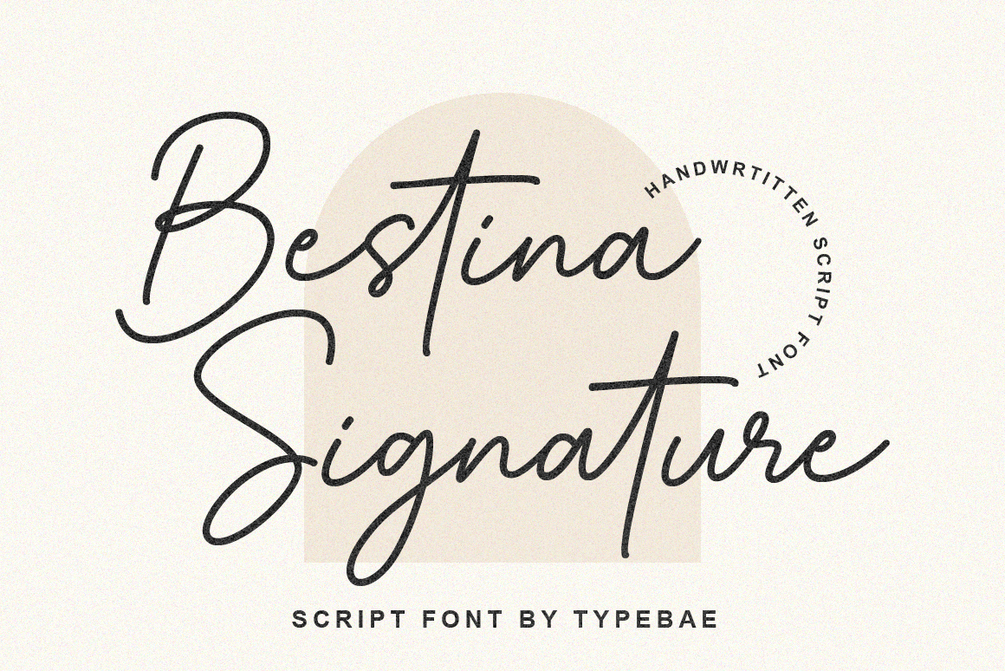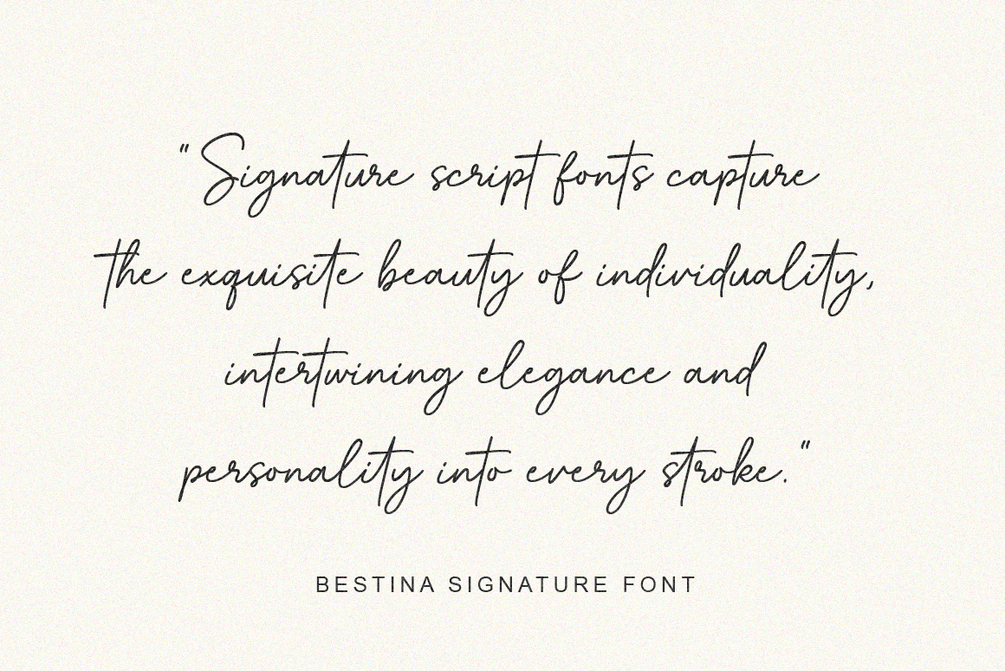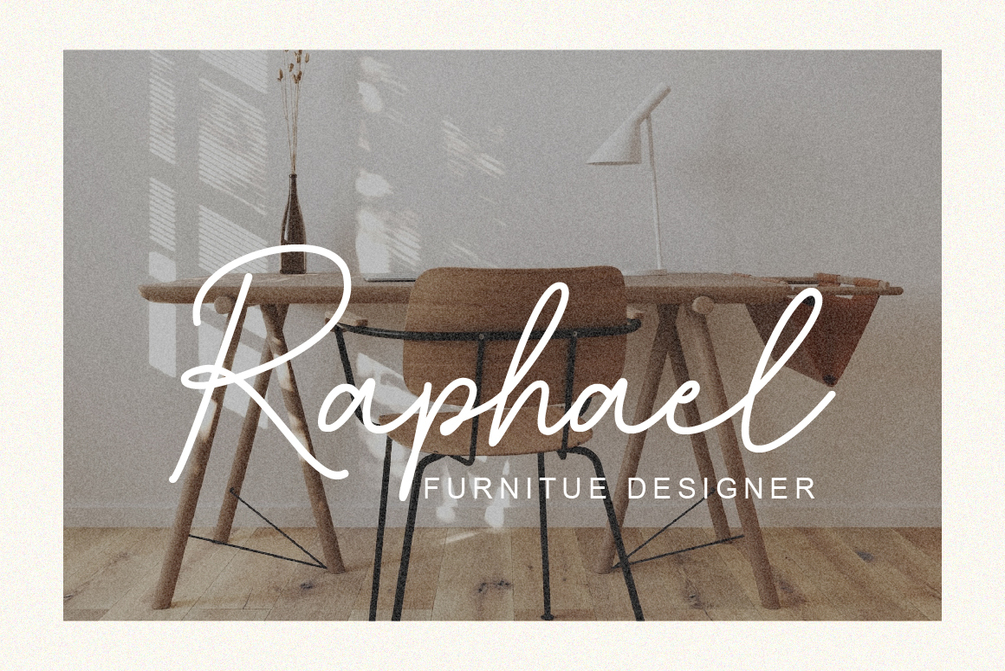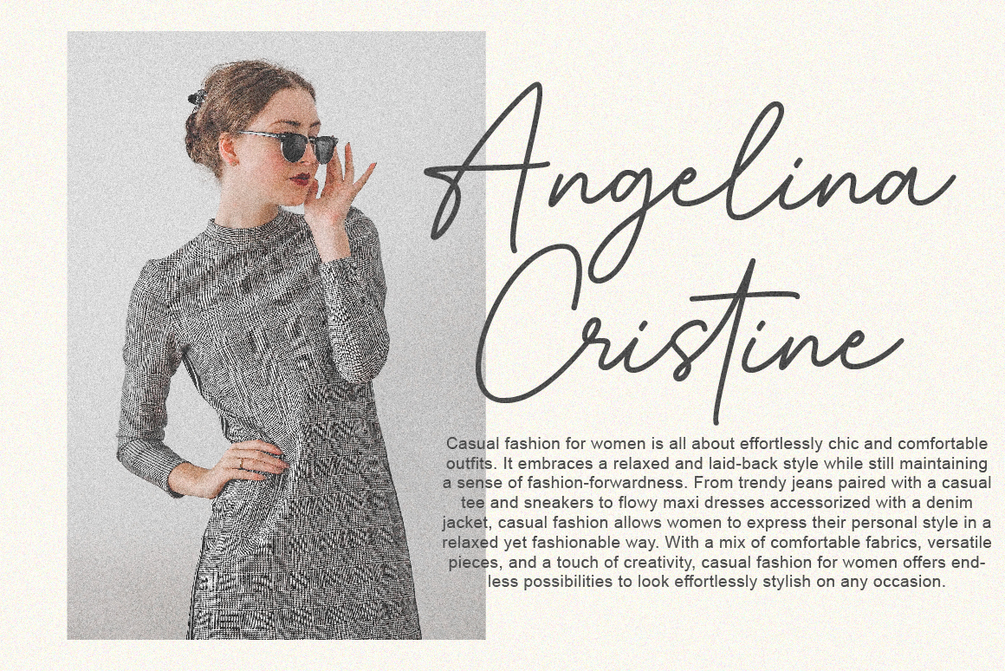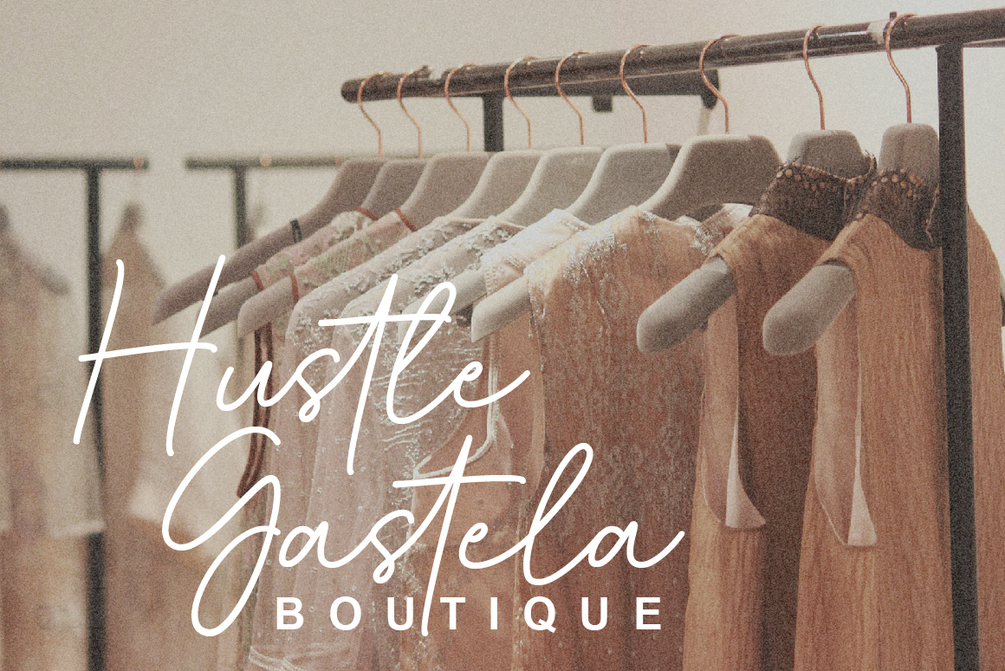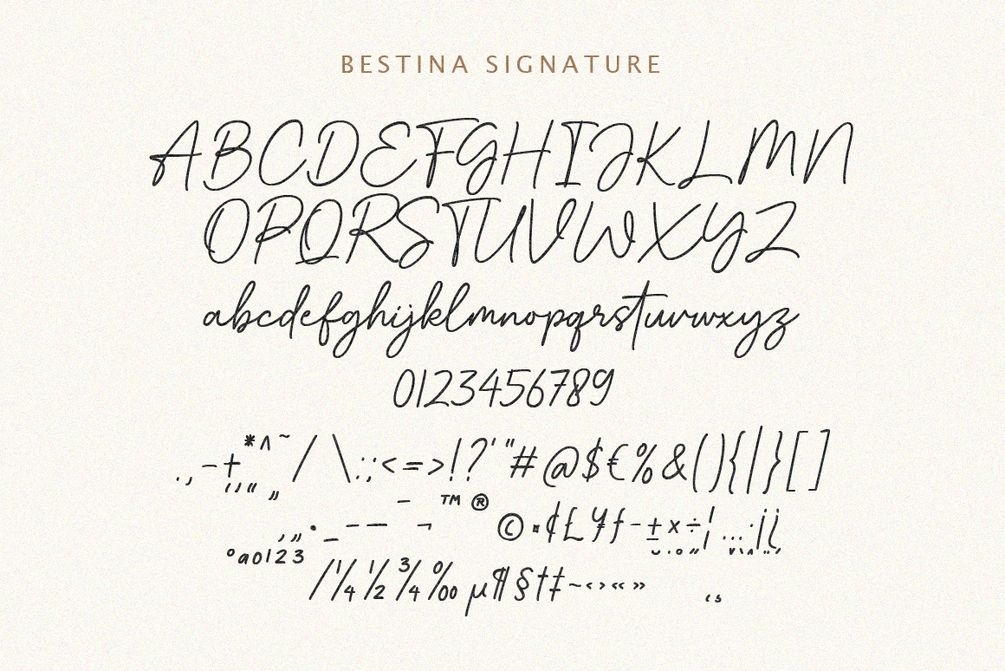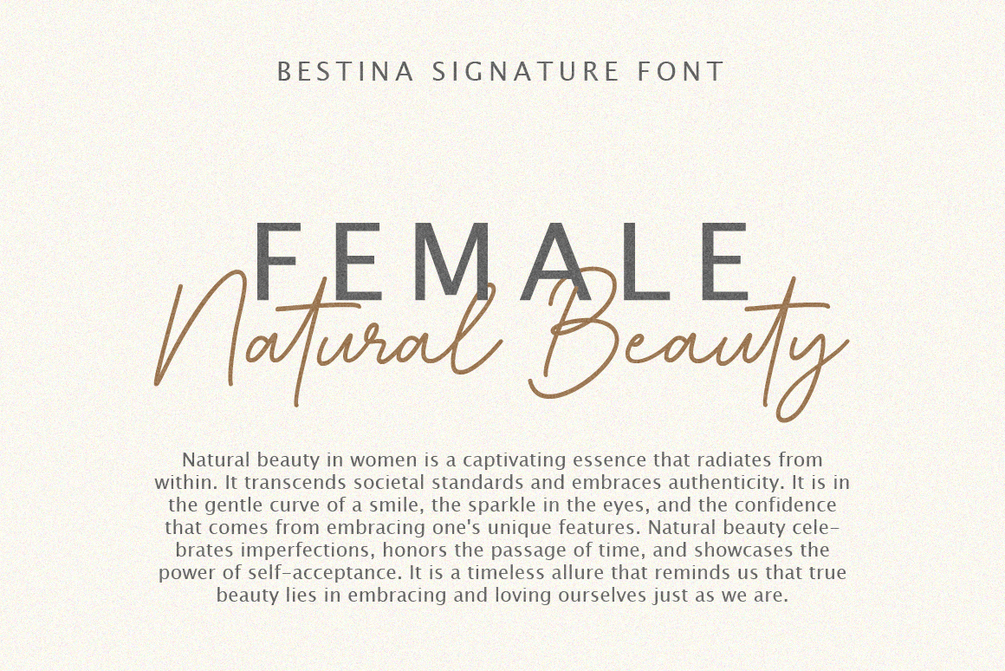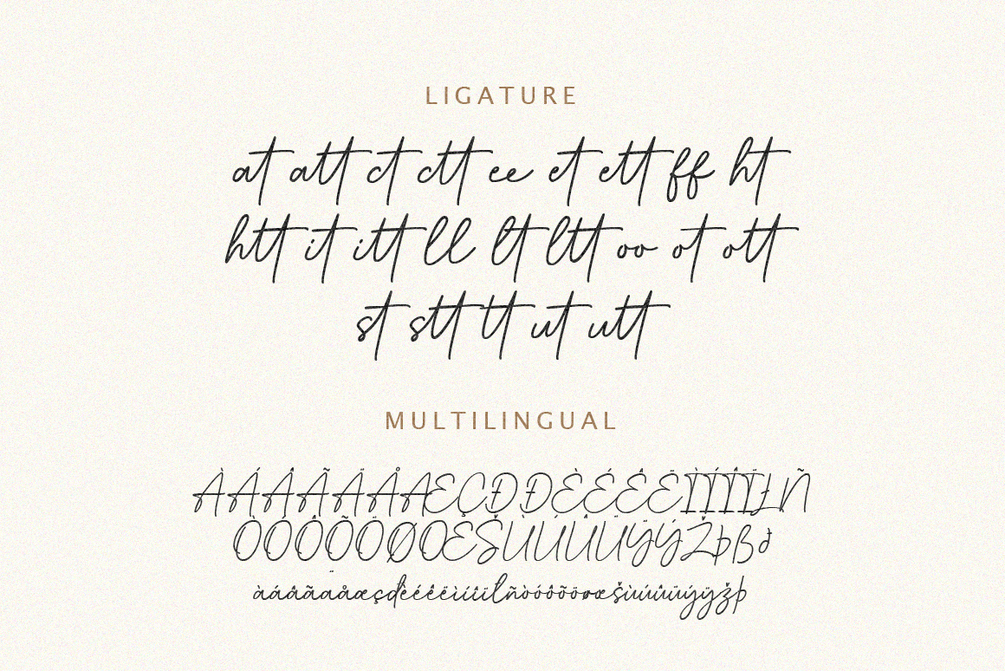
Bestina Signature
Bestina Signature Font is a delicated signature-style script handwriting font. With delicate and graceful lines, this font adds a personal and sophisticated touch to your designs. Use Bestina Signature Font to add an exclusive and elegant touch to logos, invitations, marketing materials, and various other design projects that require a special handwritten style.
• Standard alphabet and punctuation
• Ligature Feature